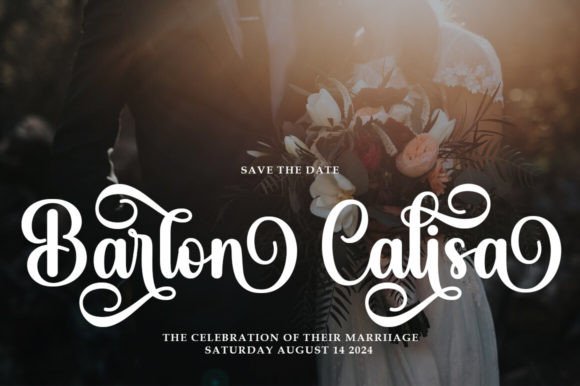
Black Chocolate Font
Black Chocolate is a graceful, modern calligraphic font. With its beautiful rhythm, this font will help you create gorgeous and classy compositions. Use it for branding projects, invitations, web graphics, cards, and many more!